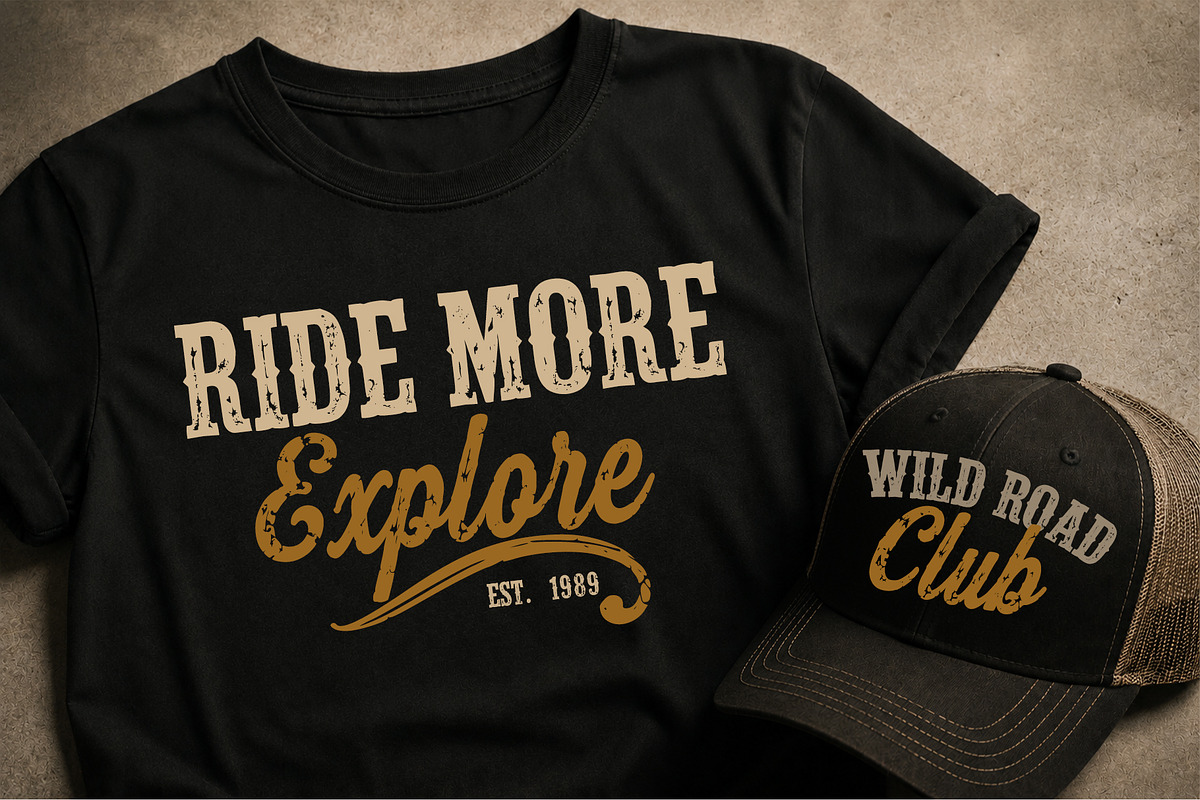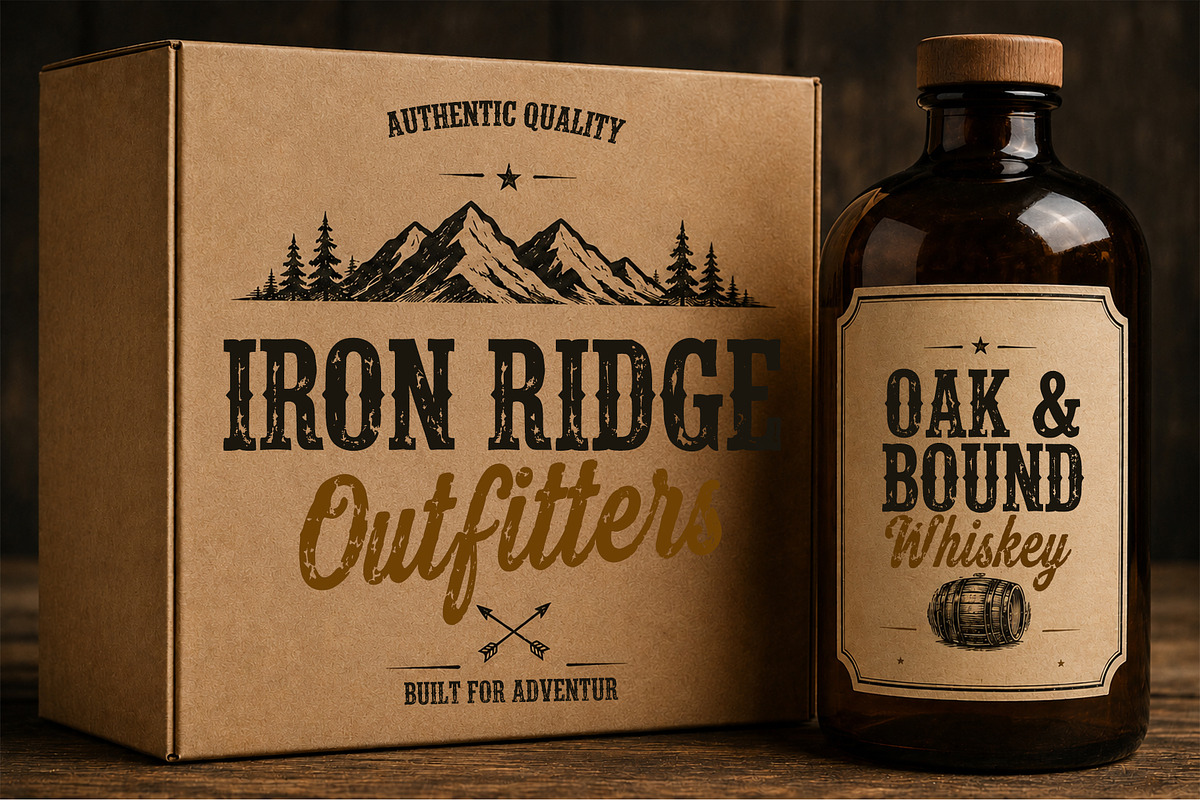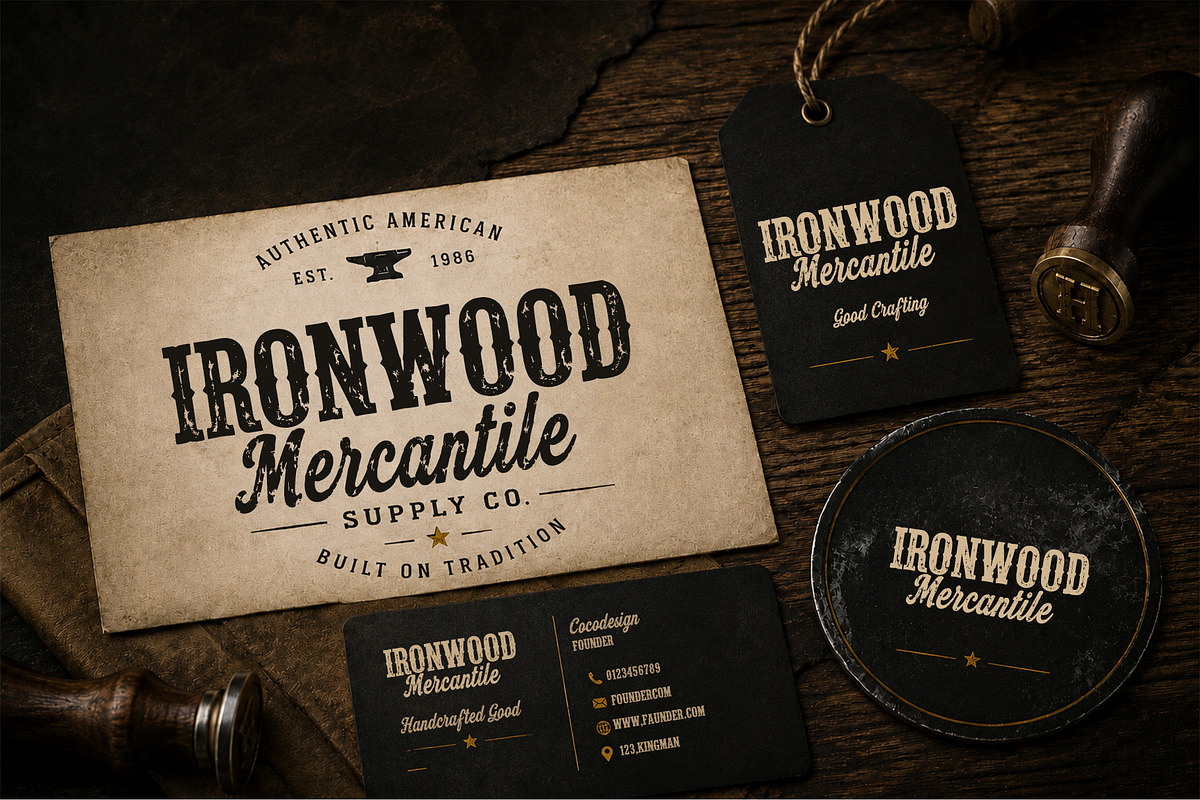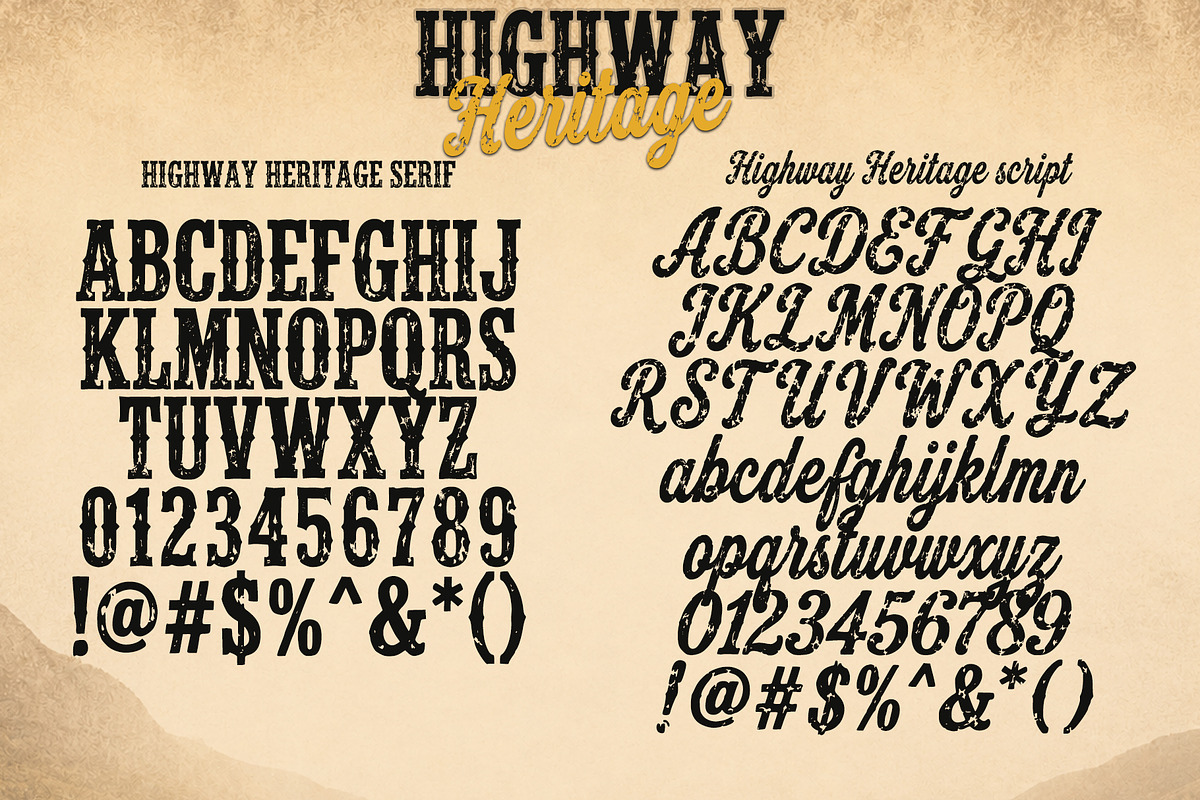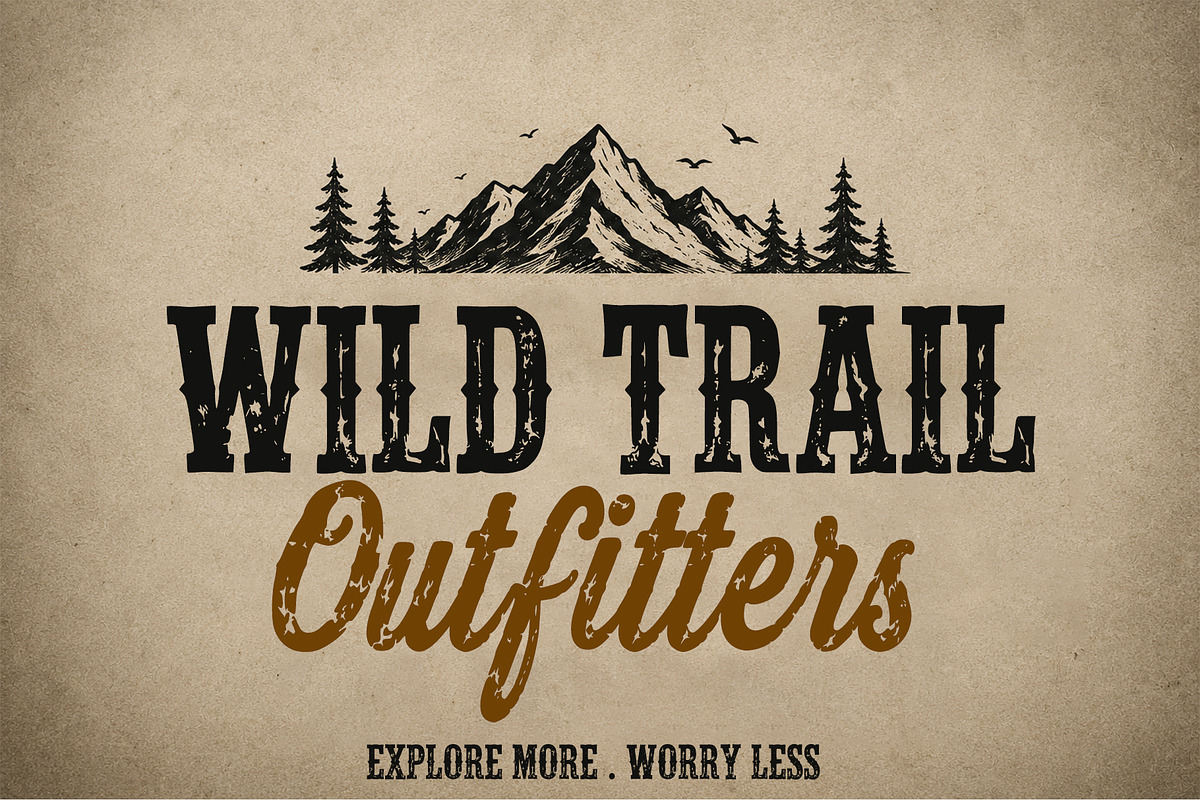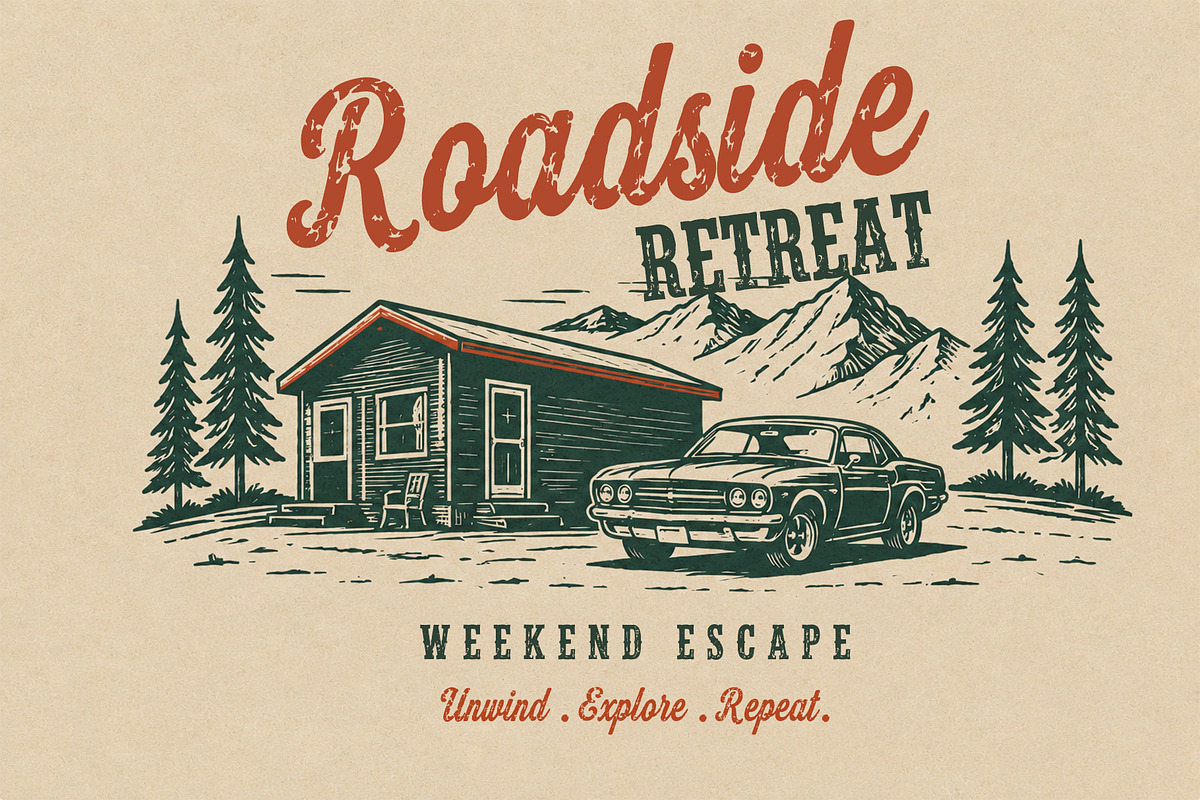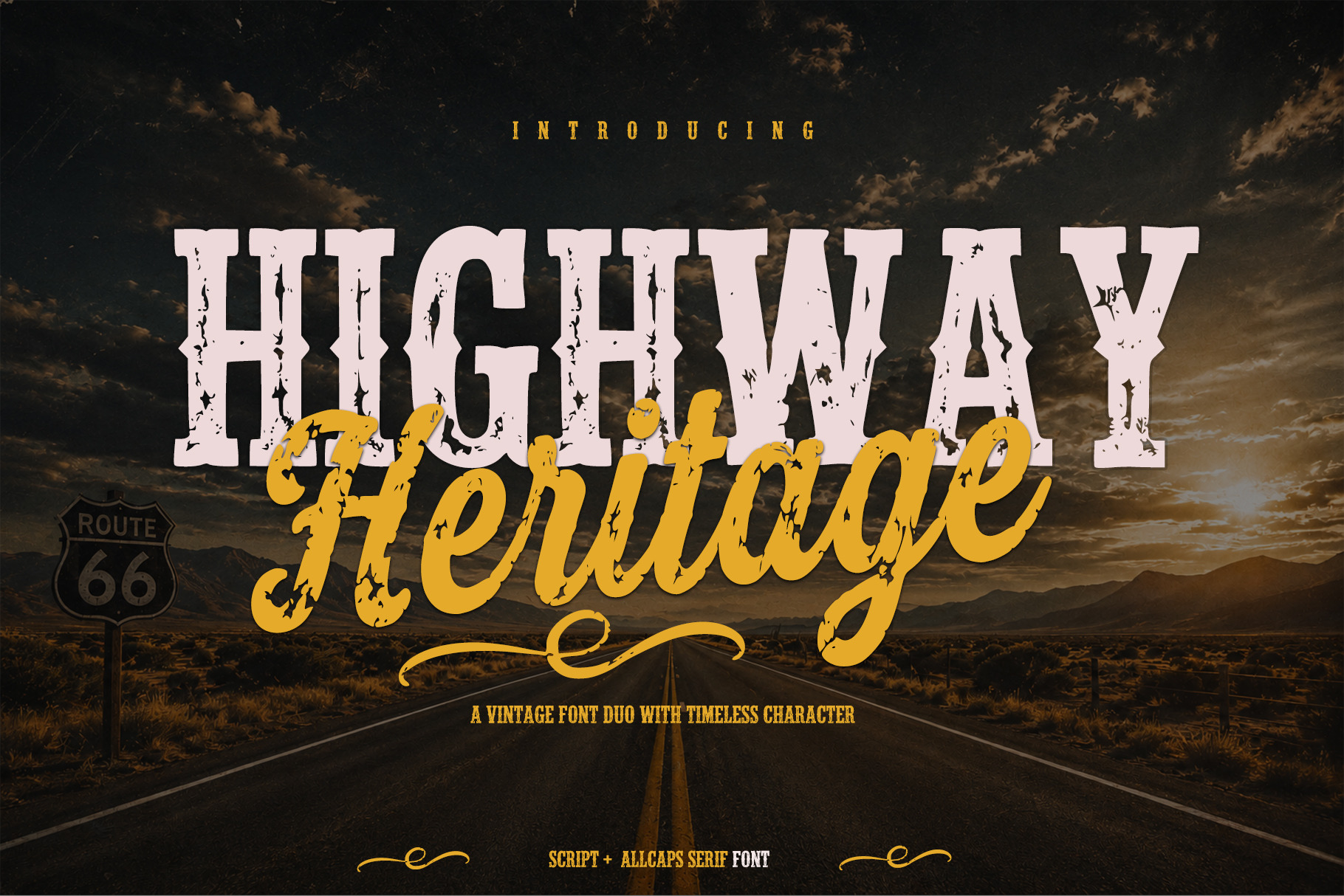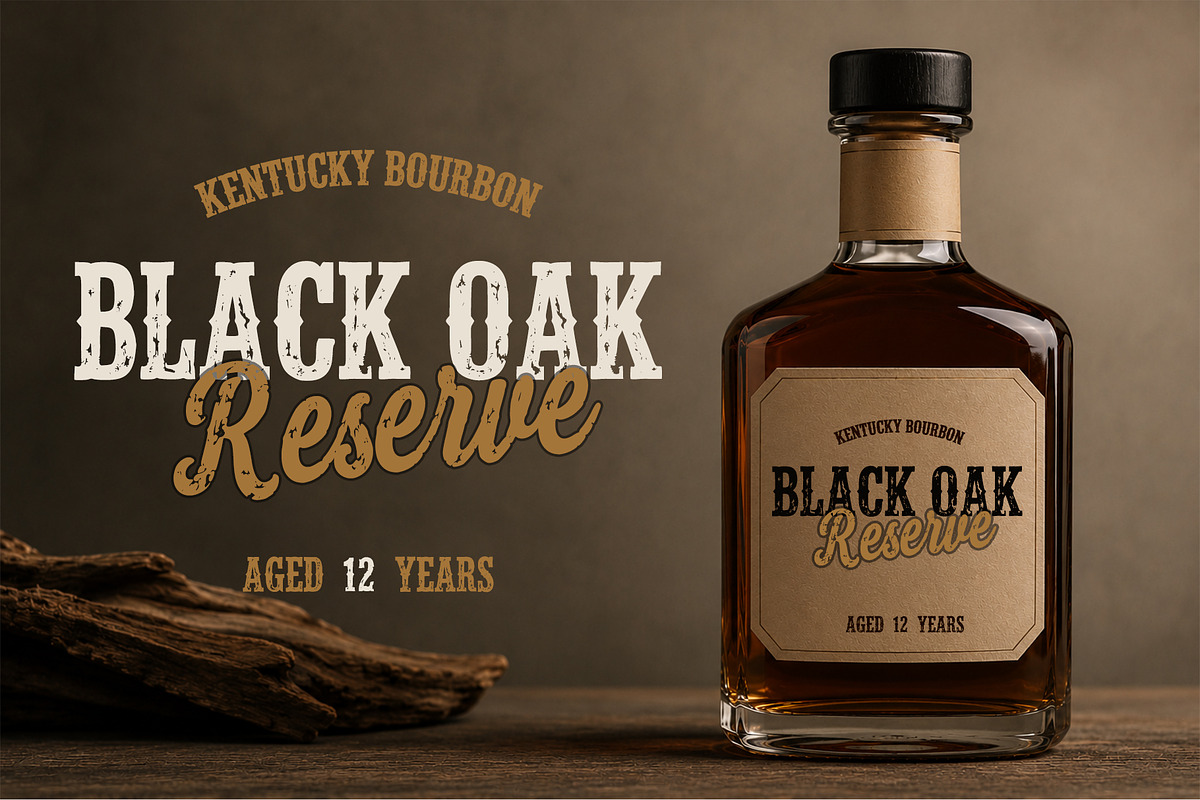
Highway Heritage font duo
Highway Heritage is a vintage font duo that combines a bold all-caps serif with a flowing script typeface. Inspired by classic Americana, western signage, retro advertising, and timeless typography, this font delivers a strong visual impact with authentic vintage appeal.
The serif font provides bold structure and excellent readability, while the script font adds dynamic contrast and elegant movement. Together, they create a versatile combination suitable for a wide variety of design applications.
Ideal for logos, branding, packaging, apparel, signage, posters, labels, editorial projects, social media graphics, advertising materials, and more.